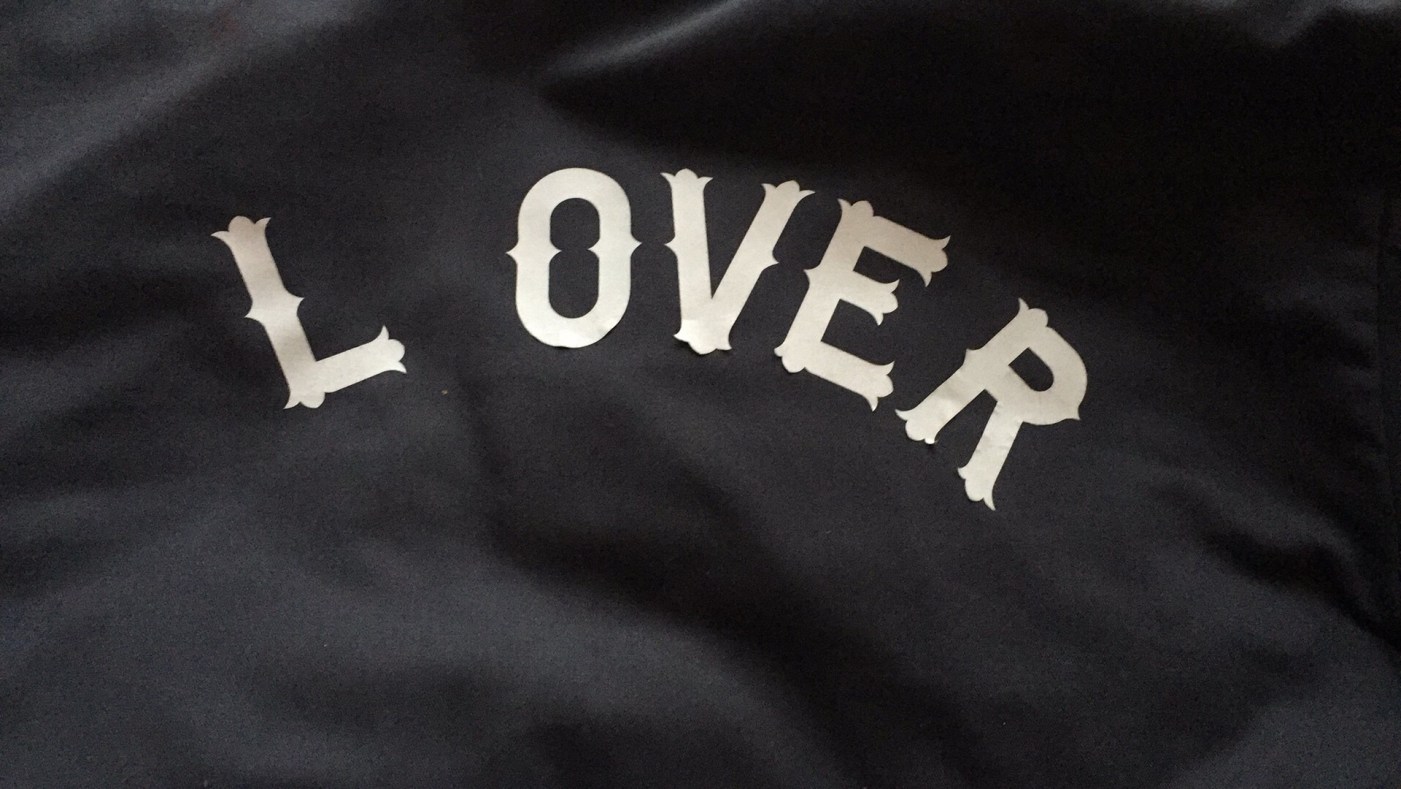
Find me this font please! (L OVER)
Looking for this font. I have no information at all whatsoever. Was found on a jacket at a thrift shop. It would be really nice to know. Thank you!
I don’t have a match for you, but you could try searching for “Tuscan” style typefaces. Hopefully you will discover something similar that would be suitable.